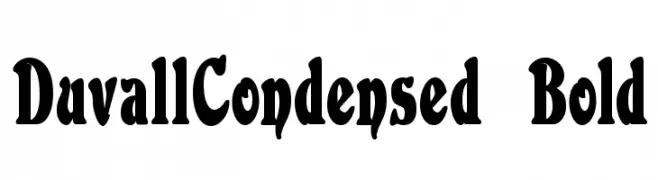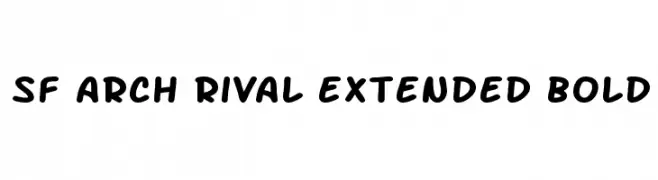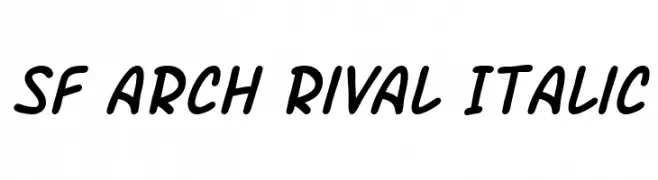
( Paul Lloyd Fonts )
A bold, decorative font with gothic and medieval influences.
( Fonts by www.4yeo.com )
A bold decorative dingbat font with wedding and celebration icons.
( Fonts by Paul Lloyd )
A bold, high-contrast serif font with a vintage and decorative style.
( Fonts by Paul Lloyd )
A bold, condensed font with a vintage, decorative style.
( Fonts by Paul Lloyd )
A bold, condensed font with a vintage style, perfect for impactful designs.
( Fonts by ShyFonts )
A bold, italicized script font with a playful and dynamic style.
( Fonts by ShyFonts )
A bold, playful font with rounded edges and extended characters.
( Fonts by ShyFonts )
A bold, italicized, and playful handwritten font with a strong visual impact.